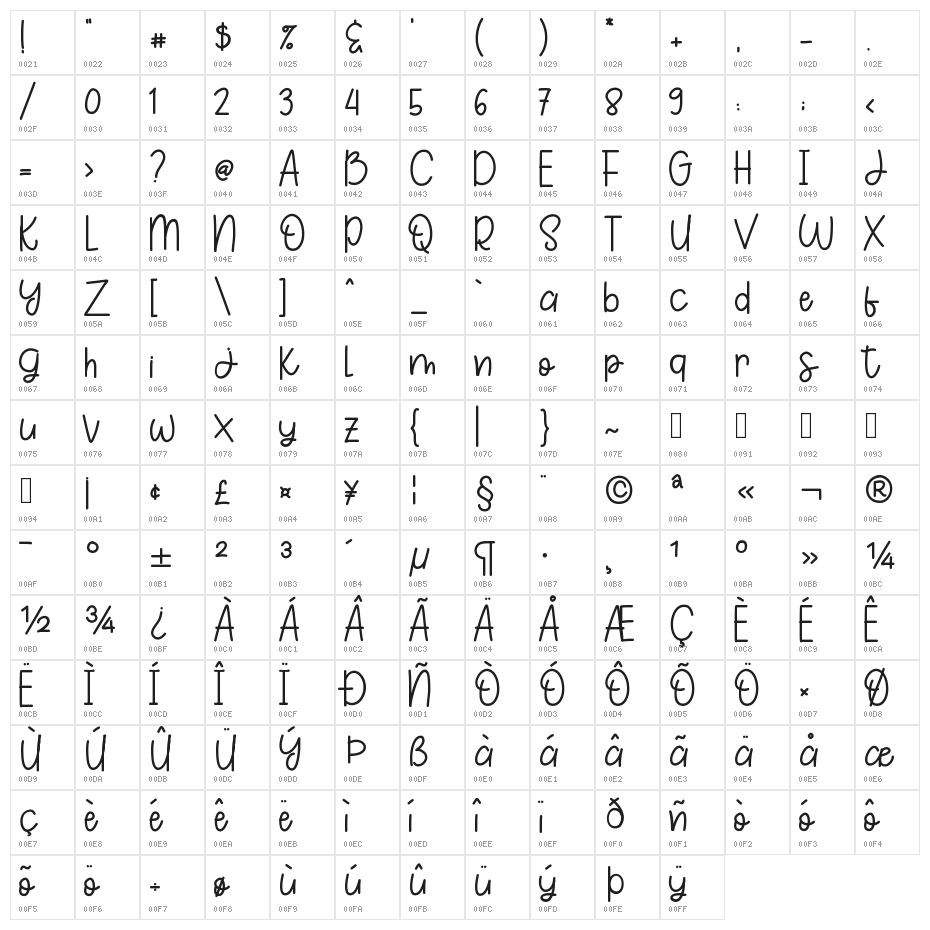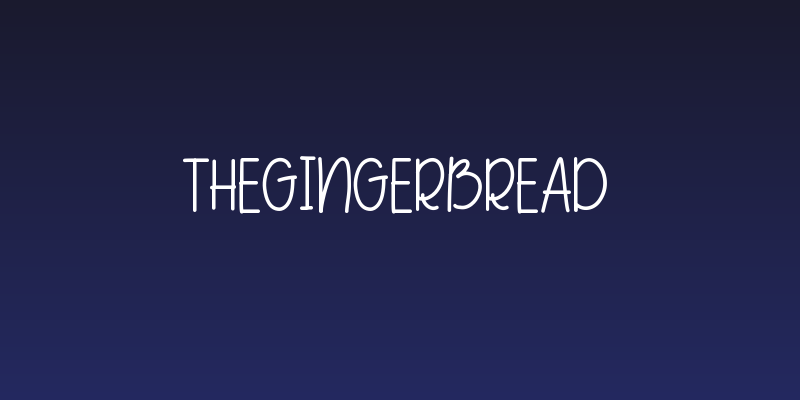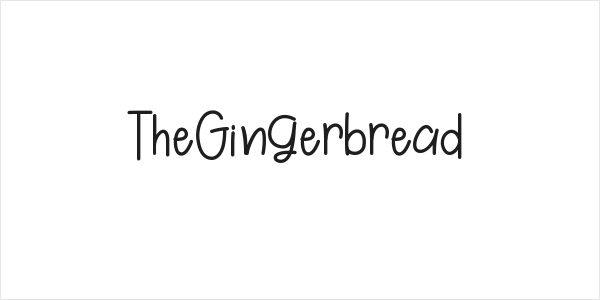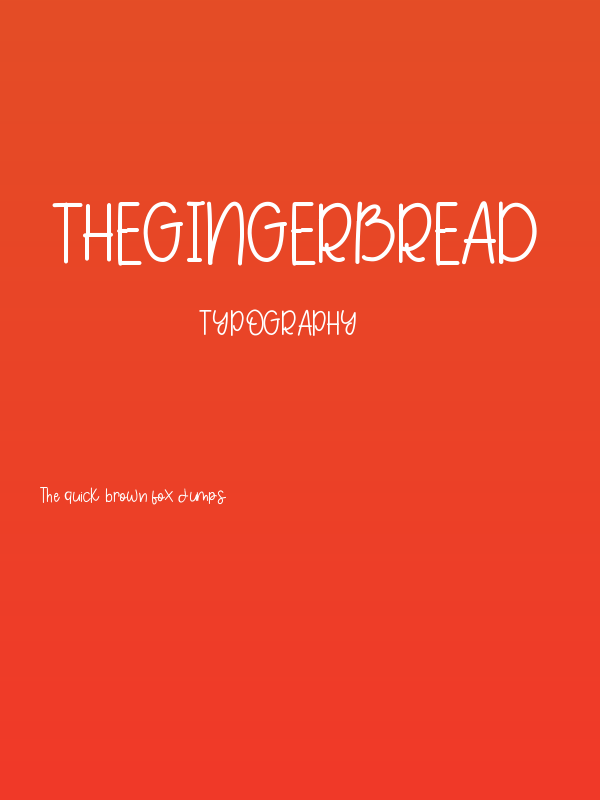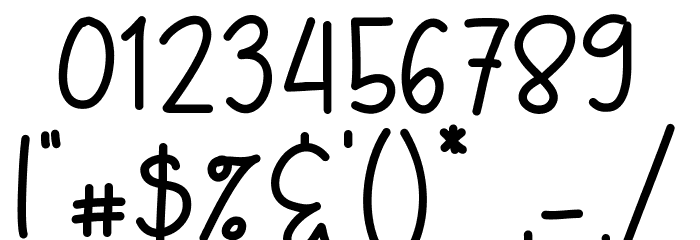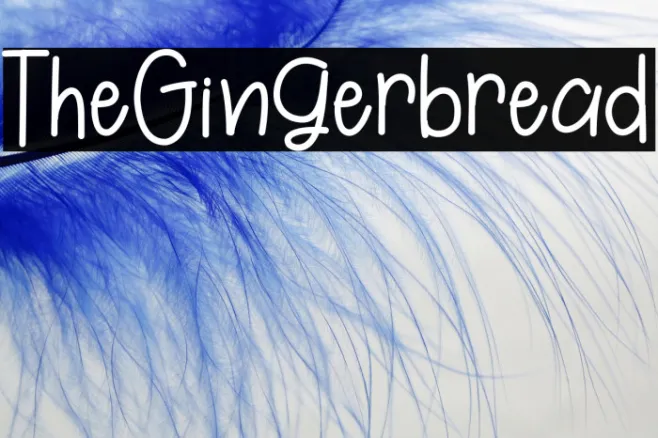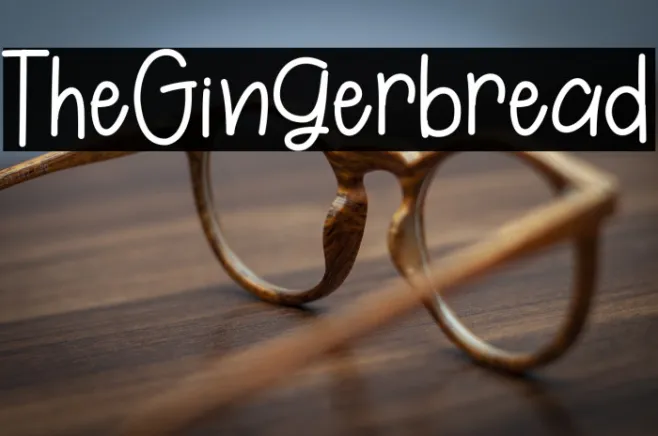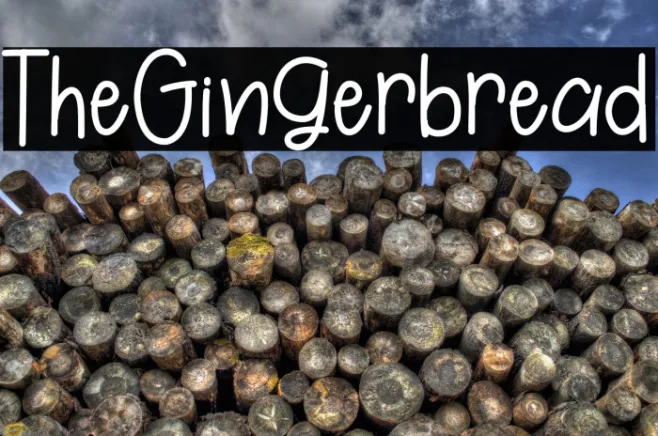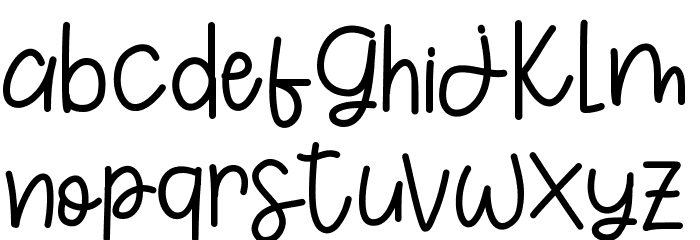
TheGingerbread Font
TheGingerbread Description
This playful and whimsical font features a handwritten style with a casual and friendly appearance. The letters are characterized by smooth, flowing lines and a slightly irregular baseline, giving it a charming, informal look. The uppercase letters are tall and narrow, while the lowercase letters maintain a consistent height, creating a harmonious balance. The numbers and special characters follow the same playful aesthetic, making this font versatile for various creative applications. Its unique style is perfect for adding a personal touch to any project.
| Proposed Projects | Ideal for greeting cards, children's books, playful branding, and social media graphics. |